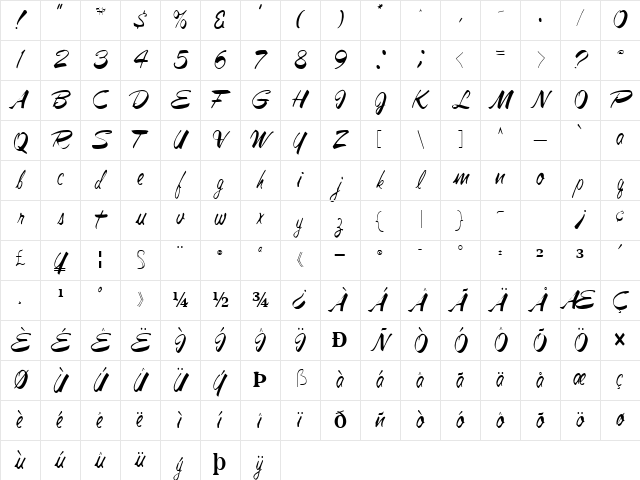
Complete JesaBellFont72 Regular glyph index. Displaying only characters natively supported by JesaBellFont72 Regular font.
JesaBellFont72 is a composed and adaptable typeface that performs quietly and consistently across a wide range of design contexts.